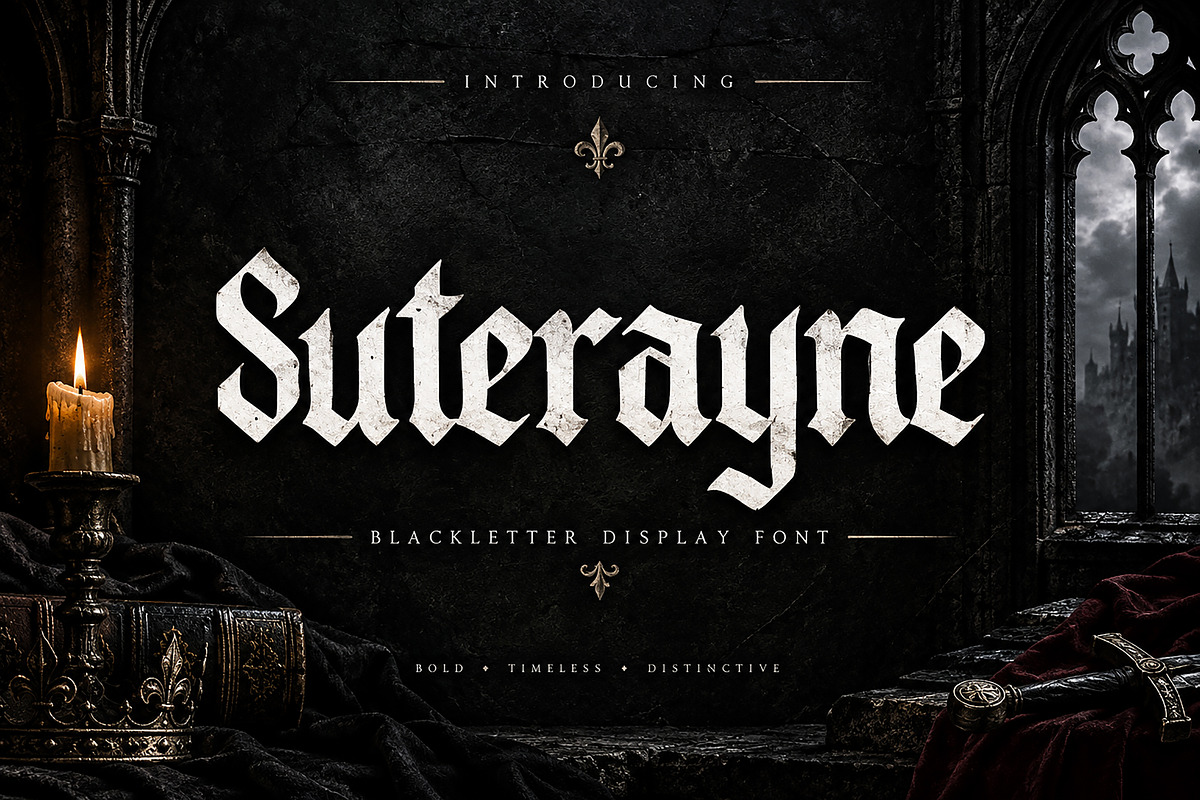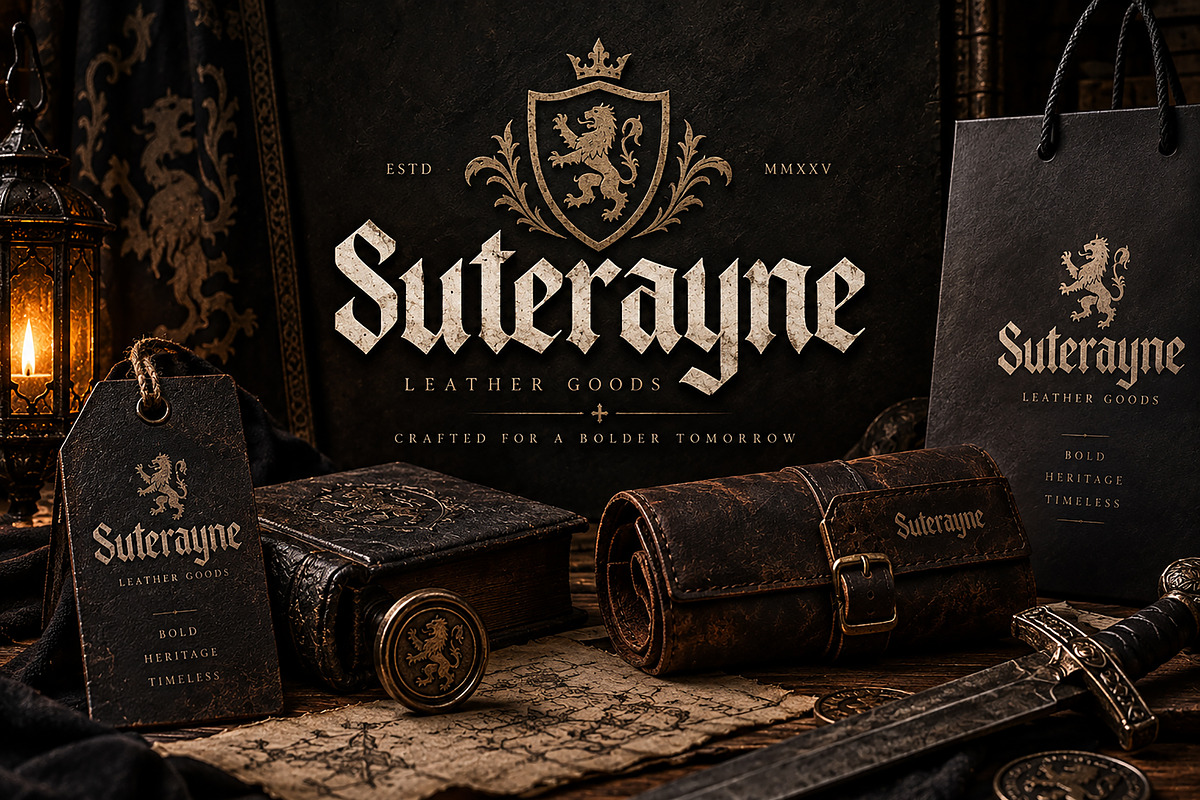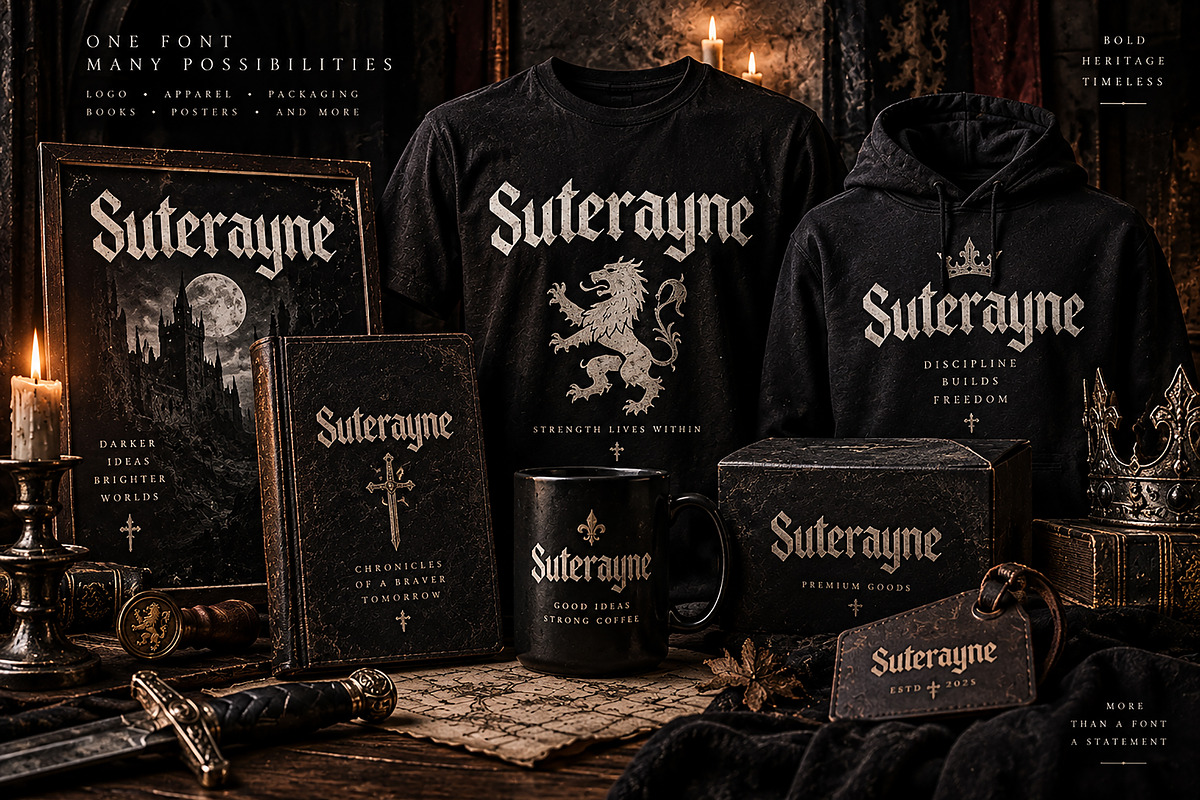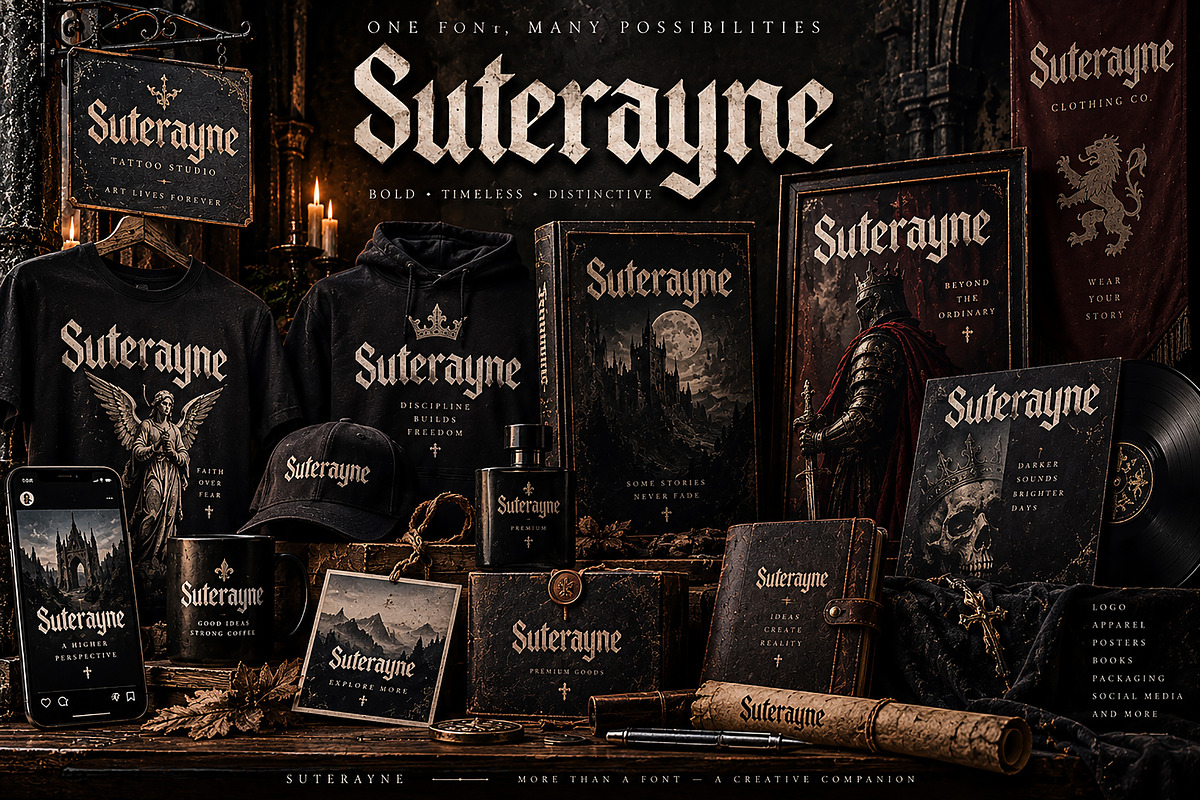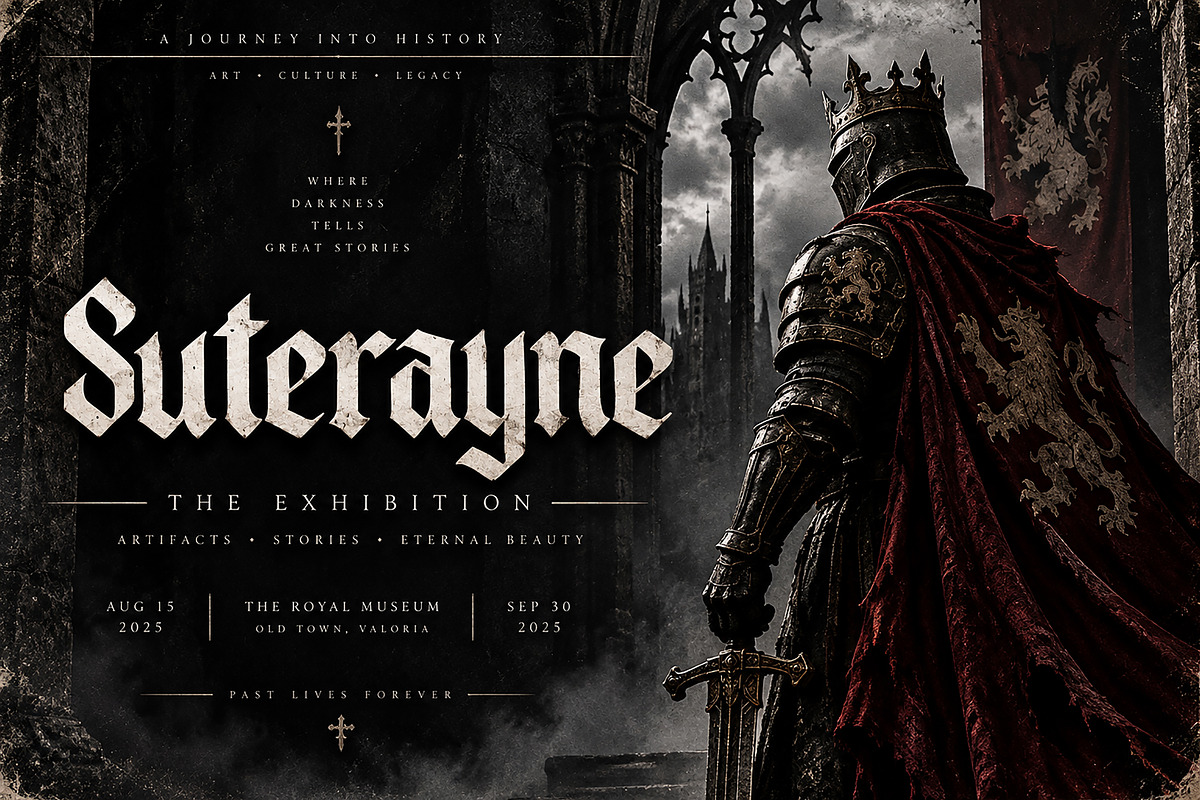
Suterayne
SUTERAYNE — Blackletter Display Font
Suterayne is a bold and distinctive Blackletter Display Font inspired by medieval typography, gothic aesthetics, and timeless craftsmanship. Its sharp, dramatic letterforms bring a powerful and authentic character to any design that needs a strong visual presence.
Designed to make an immediate impact, Suterayne works beautifully for logos, branding, apparel, posters, album artwork, book covers, packaging, labels, merchandise, signage, social media graphics, tattoos, and other creative projects.
Its dark and sophisticated personality makes it especially suitable for Gothic, medieval, vintage, alternative, fantasy, streetwear, tattoo, metal, and heritage-inspired designs.
Whether you are creating a powerful brand identity or an eye-catching headline, Suterayne gives your typography a bold, memorable appearance.
Logo & Brand Identity
Gothic & Medieval Designs
T-Shirt & Apparel Graphics
Posters & Flyers
Album & Music Artwork
Book & Magazine Covers
Packaging & Product Labels
Signage & Badges
Tattoo-Inspired Artwork
Social Media Designs
Editorial & Promotional Graphics
Font: Suterayne
Style: Blackletter / Gothic / Medieval Display
Type: Display Typeface